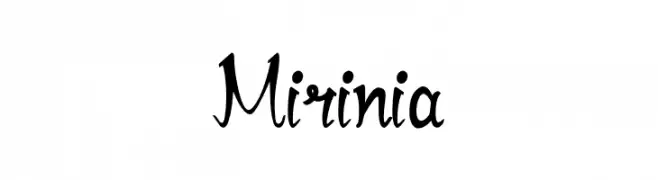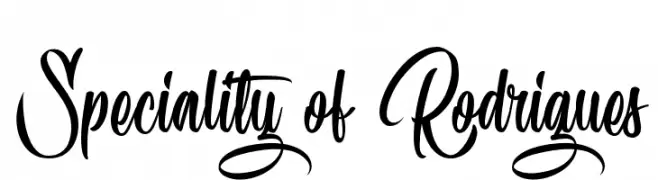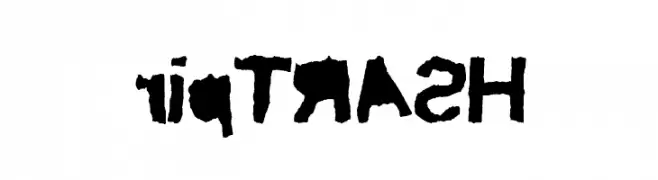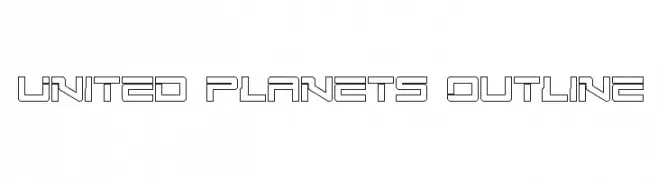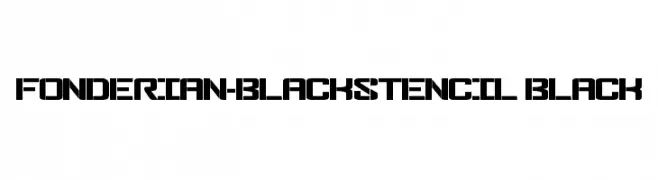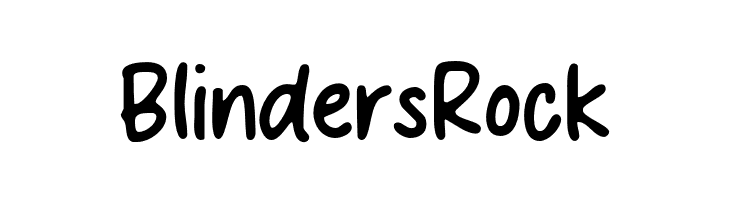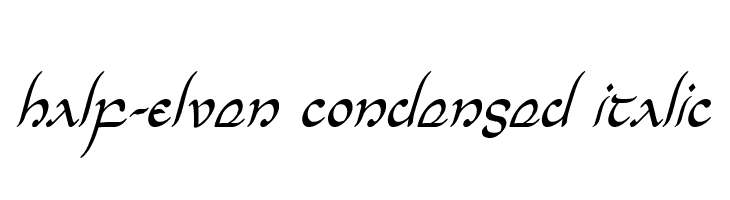
A dynamic, hand-drawn style font with bold, irregular strokes.
A whimsical and artistic font with flowing, cursive-like strokes and playful curves.
A bold, italicized font with thick strokes and a dynamic, modern style.
An elegant script font with flowing, decorative strokes and sophisticated flourishes.
A rugged, distressed font with bold, irregular edges for a raw visual impact.
A bold, geometric font with a strong industrial and futuristic feel.
A futuristic, geometric outline font with sharp angles and clean lines.
A bold, geometric stencil font with high contrast and industrial appeal.
A playful, casual handwritten font with rounded, uniform strokes.